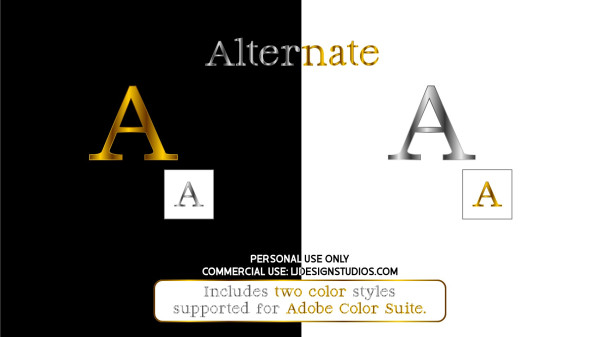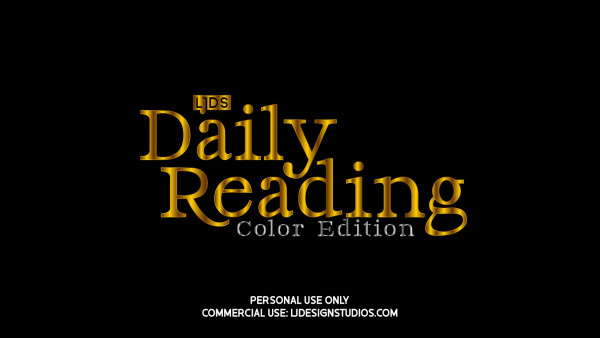
Daily Reading Font
Daily Reading Font, presents one more variable of its font styles “Daily Reading Color font” which has two gradient styles that are Gold and Silver incested as alternatives to manipulate in Adobe Illustrator, Photosh, among other software that supports Adobe Color svg